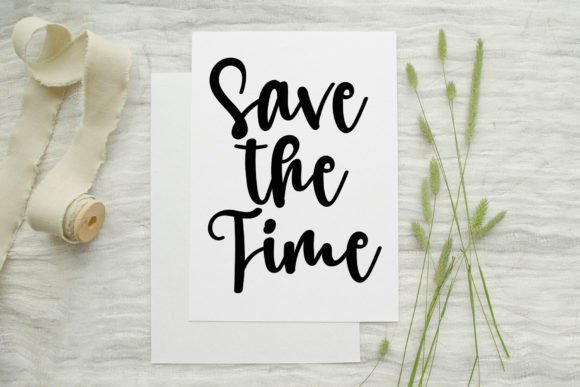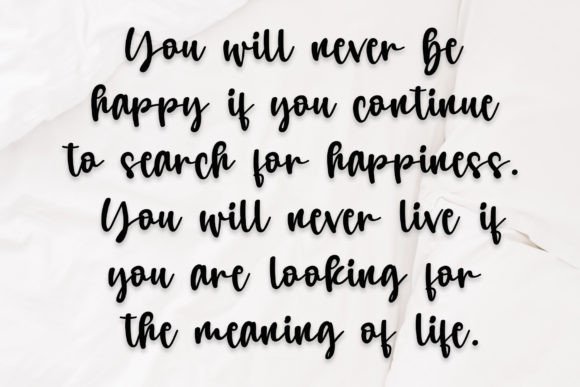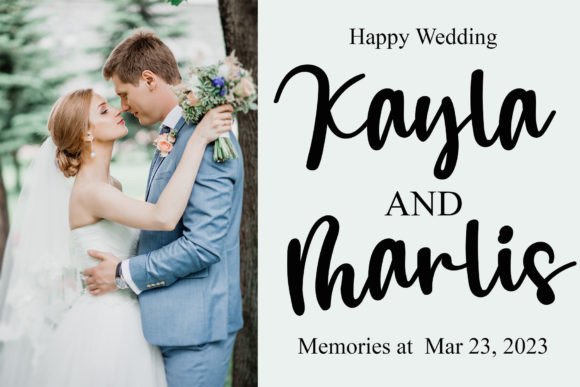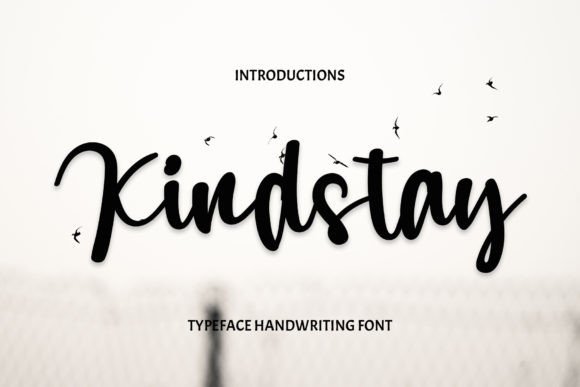
Introduction to Kindstay Font
Kindstay is a delicate, elegant, and flowing handwritten font perfect for your favorite projects.
Fall in love with its incredibly distinct and timeless style, and use it to create spectacular designs This font is PUA encoded, which means you can access all of the glyphs and swashes with ease.
Key Features of Kindstay Font